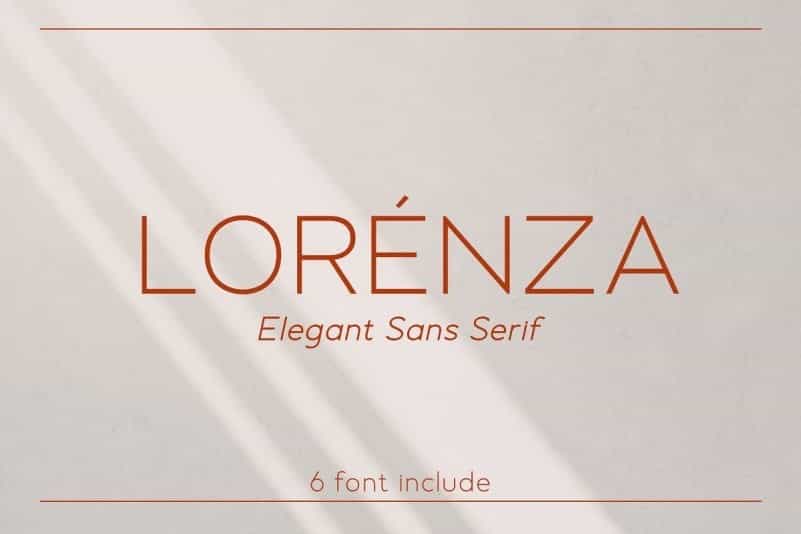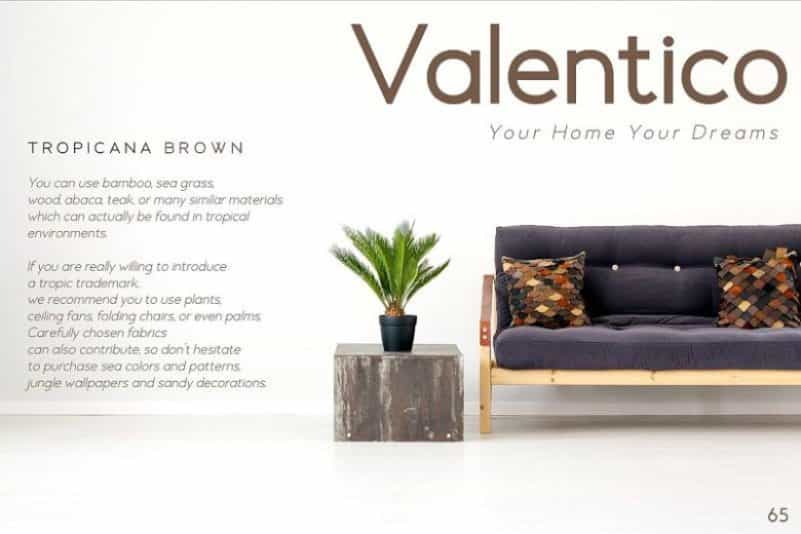
Lorenza Elegant Sans Font Family
LORENZA Font Our most recent creation was a result of the logo we saw, it is simple and yet very elegant. It was made with precision and measurement in mind. It is very good for combining the design work with a clear line and a circle that have several different weights which are very comfortable in the design area. You can easily read it and use as a title on blog or magazine page.